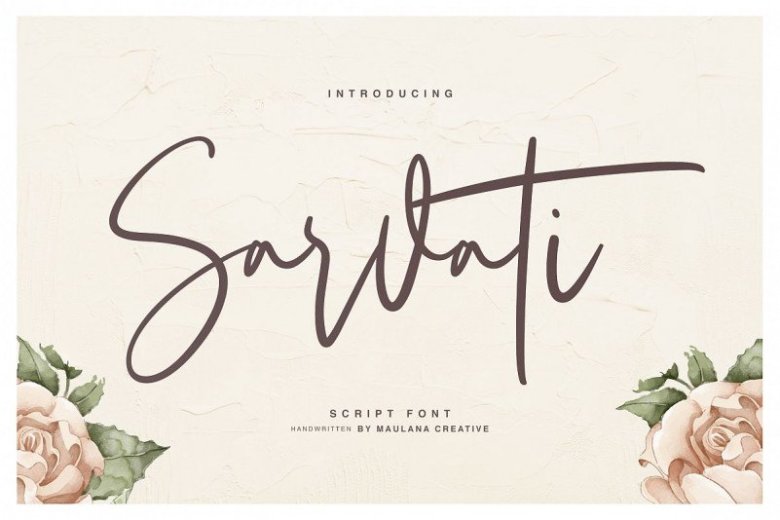
Sarvati Script Font
This modern handwritten script has been attentively written, with gentle curves to produce a font thats completely distinctive and original. This handwritten font is ideal for branding and decorate your any project. Introducing Sarvati Font. Give your designs an authentic handcrafted feel. It’s perfectly suited to signature, stationery, logo, typography quotes, magazine or book cover, website header, clothing, branding, packaging design and more. Included Ligatures.